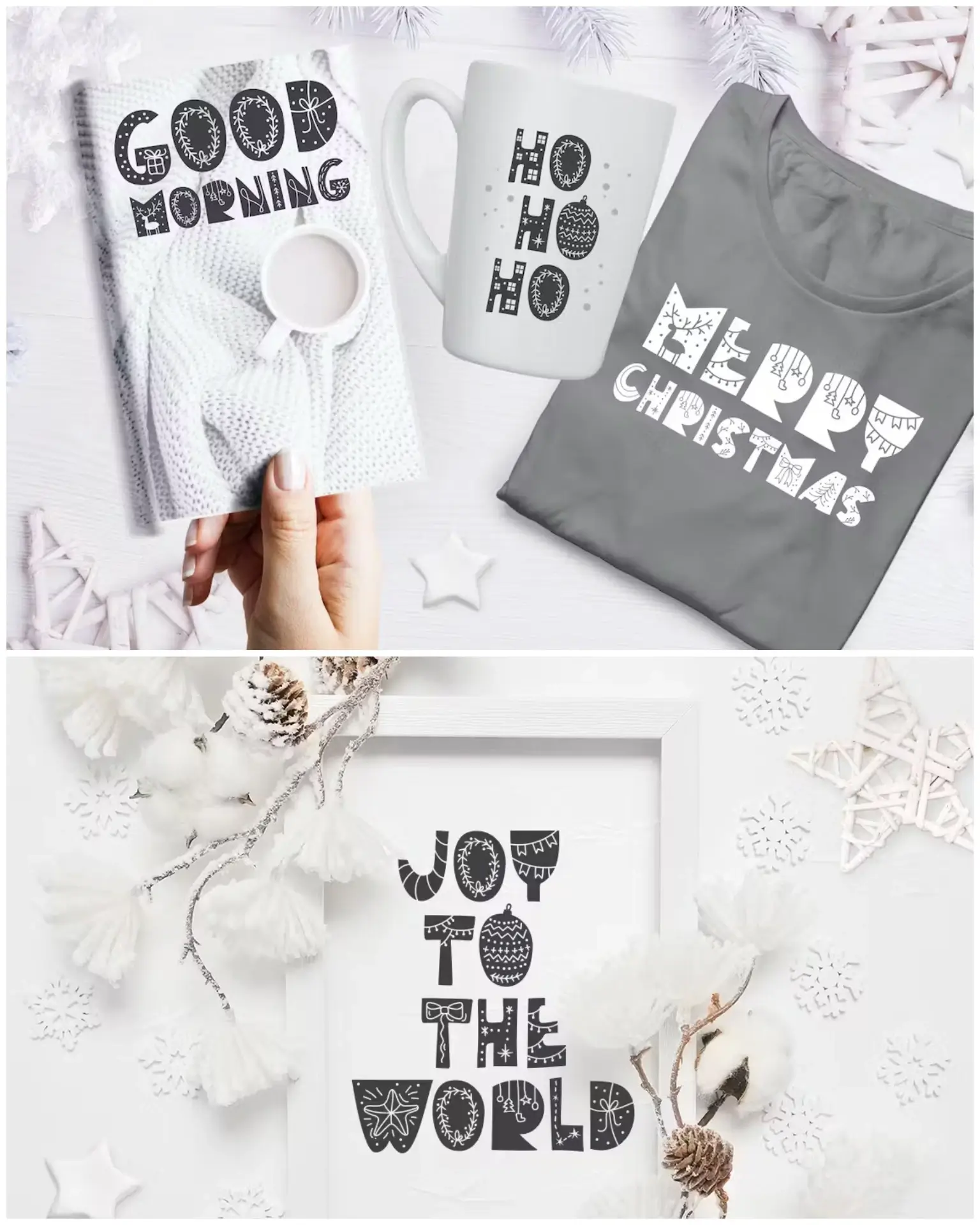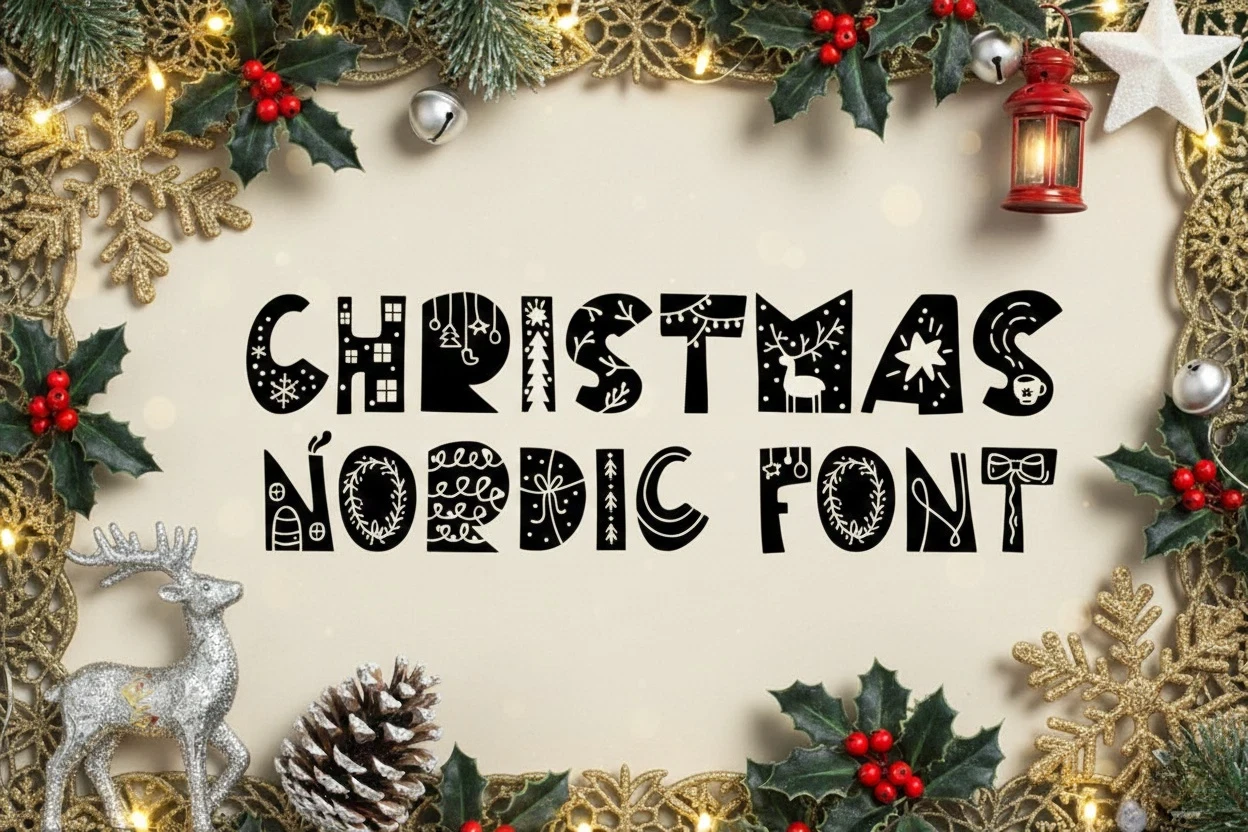
If you love a cozy, storybook feel in your designs, then Christmas Nordic Font is just what you need. This handmade, modern font has a fun Scandinavian vibe that’s great for designers, bloggers, creatives, or anyone who loves winter.
Easy-to-Use Hand-Drawn Font
About the Font
This font comes in Regular and Bold styles, giving you three different looks:
Regular Style
- The uppercase and lowercase letters are different, giving a natural, handwritten feel.
- Great for when you want a playful, unique look.
Bold Style
- The uppercase and lowercase letters are the same.
- The bold version is cleaner with no inner drawings, making it stand out more.
Winter Details on the Letters
Each letter has small winter drawings like stars, trees, reindeer, snowflakes, Santa, ornaments, coffee cups, gift boxes, houses, snow, bows, and more.
It’s like having winter holiday art built into your letters, perfect for when you want your words to do more than just talk.
Great For
Christmas Nordic Font is perfect when you need bold, cozy letters. It’s ideal for:
- Titles for kids’ books
- Scrapbooking
- Logos and branding
- Winter cards
- Photo designs
- Gift tags and packaging
- Social media posts
- Short phrases for posters and winter ads
If your project is about warmth, snow, or the holidays, this font is a great fit.
In Conclusion
Christmas Nordic Font is more than just a font – it’s winter in every letter. Use it for holiday cards, branding, kids’ books, or social media posts. This Scandinavian font is easy to use and full of character.